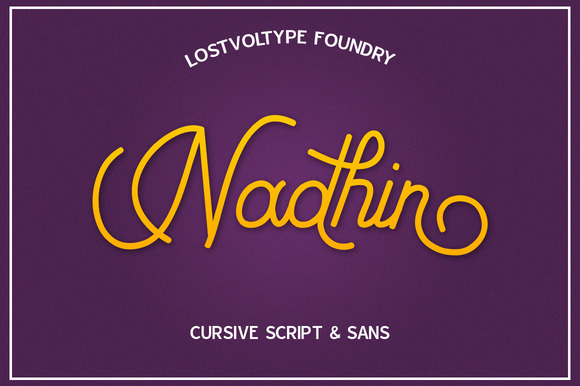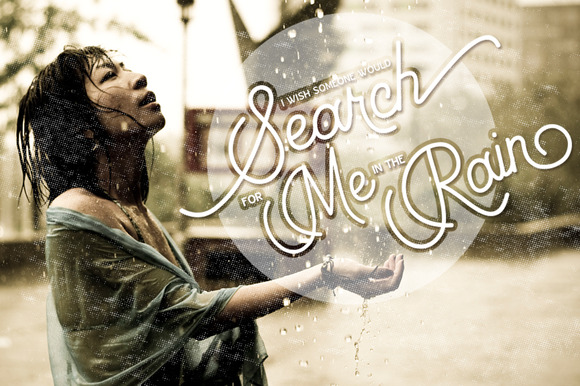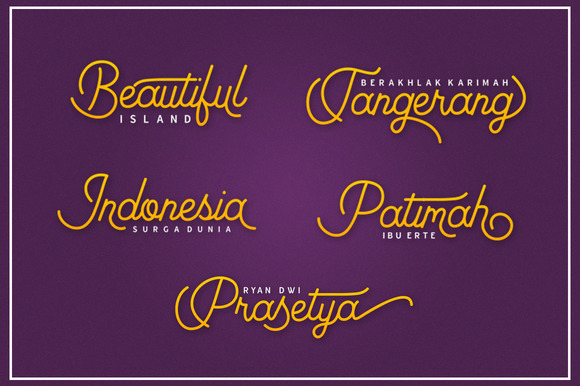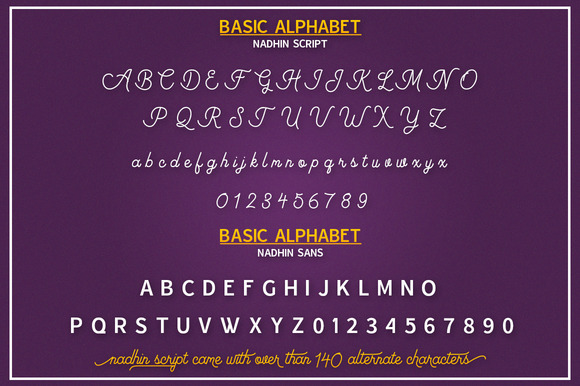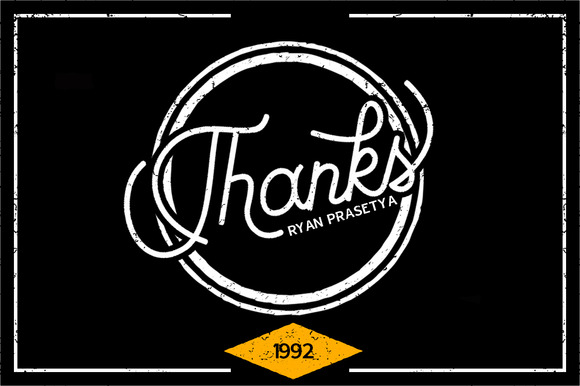
Nadhin Font
About Nadhin Font
Nadhin is a new, modern typeface. It comes in 2 versions and can be used for various purposes such as headings, logos, invitations, t-shirt designs, greeting cards, posters, labels, book covers, brochures, and any other design you want to give that elegant feeling!